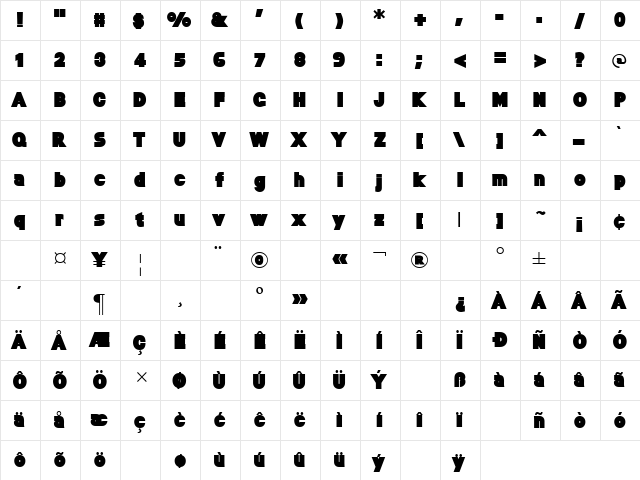
Baltar Regular
| Foundry | Larabie Fonts |
Design Context for Baltar Typeface
Baltar takes a measured approach to typography — its balanced proportions and neutral character make it a reliable workhorse for both digital and print work.